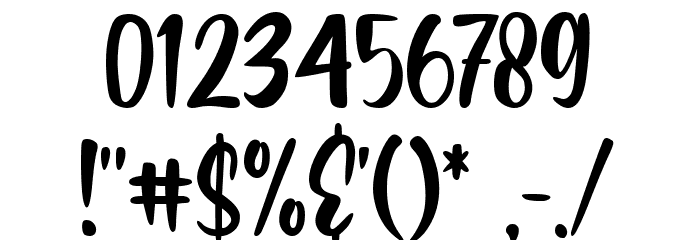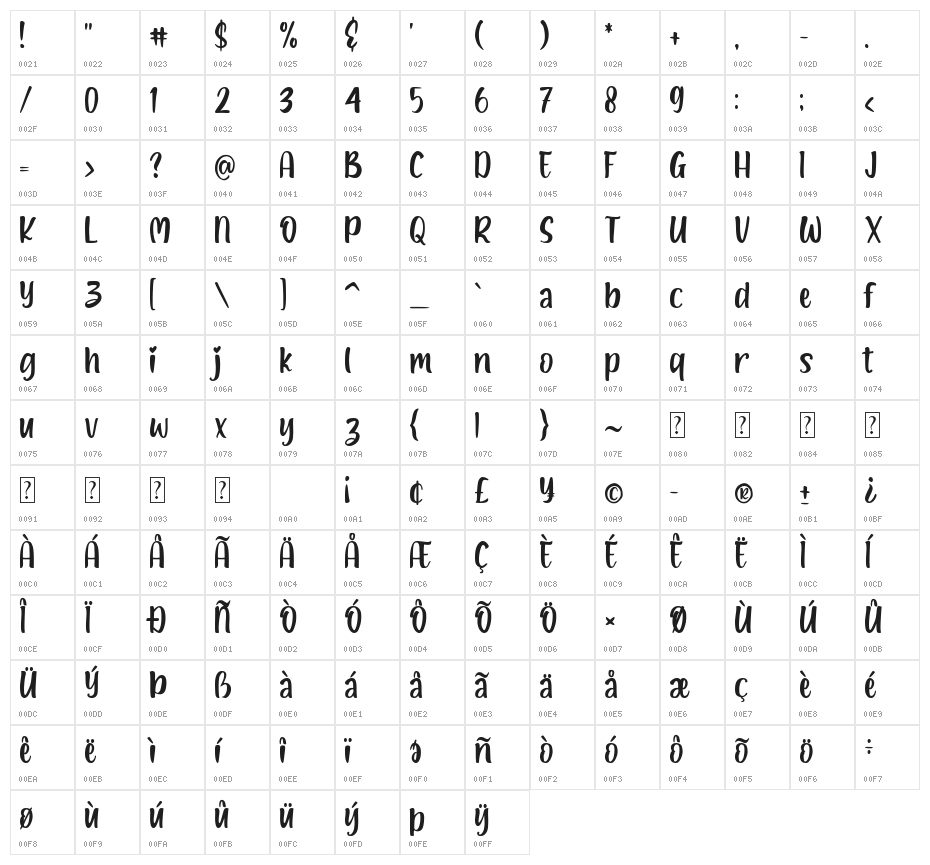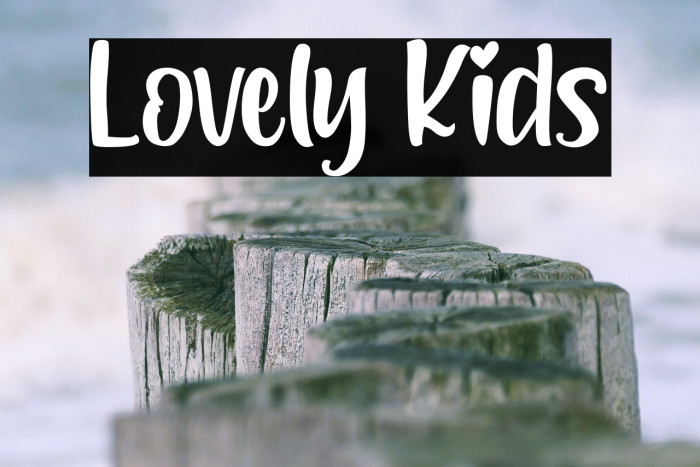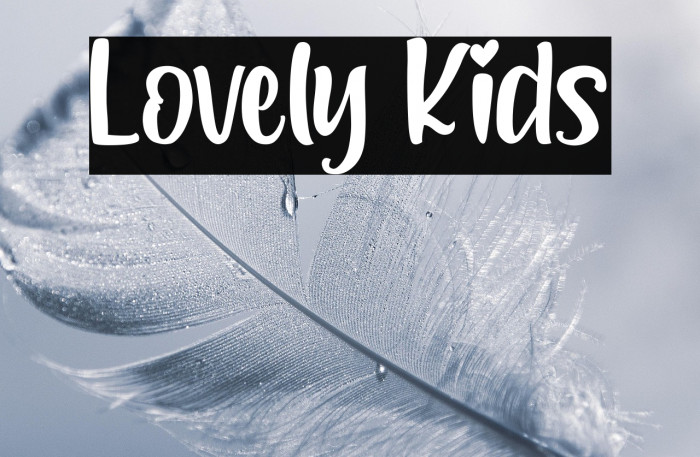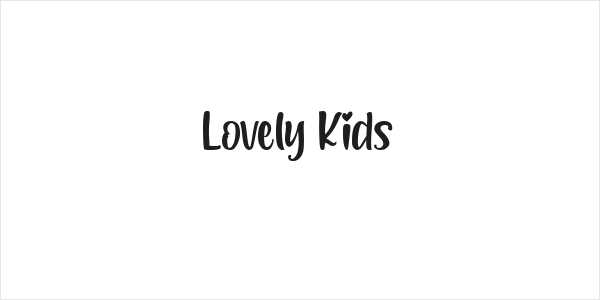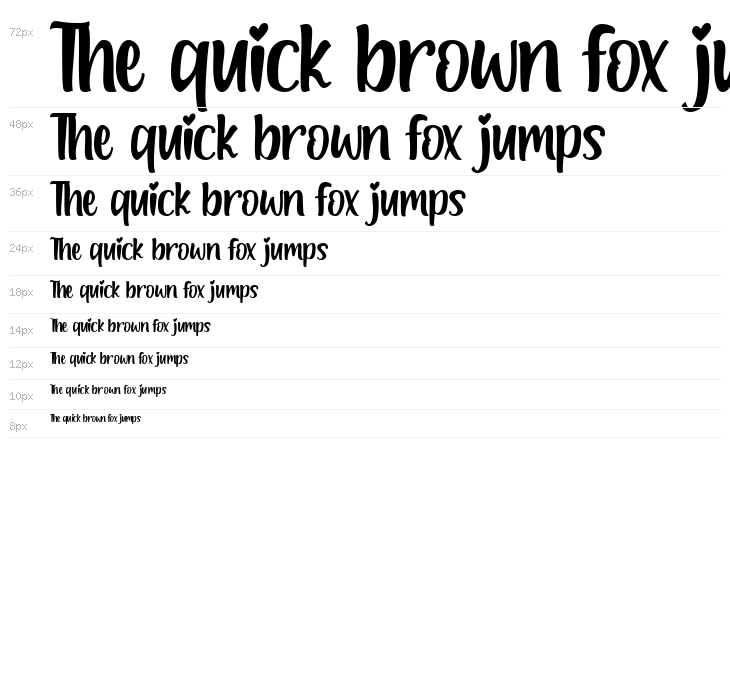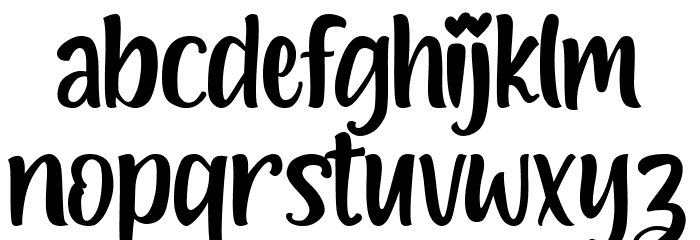
Lovely Kids Font
Lovely Kids Description
This playful and whimsical font features bold, rounded characters with a hand-drawn aesthetic. The letters have a consistent thickness, giving them a uniform appearance, while the slightly irregular shapes add a touch of charm and personality. The uppercase and lowercase letters maintain a cohesive style, with the lowercase letters exhibiting a slight slant that enhances the casual feel. The numbers and special characters are designed to match the overall playful theme, making this font ideal for projects that require a fun and friendly look.